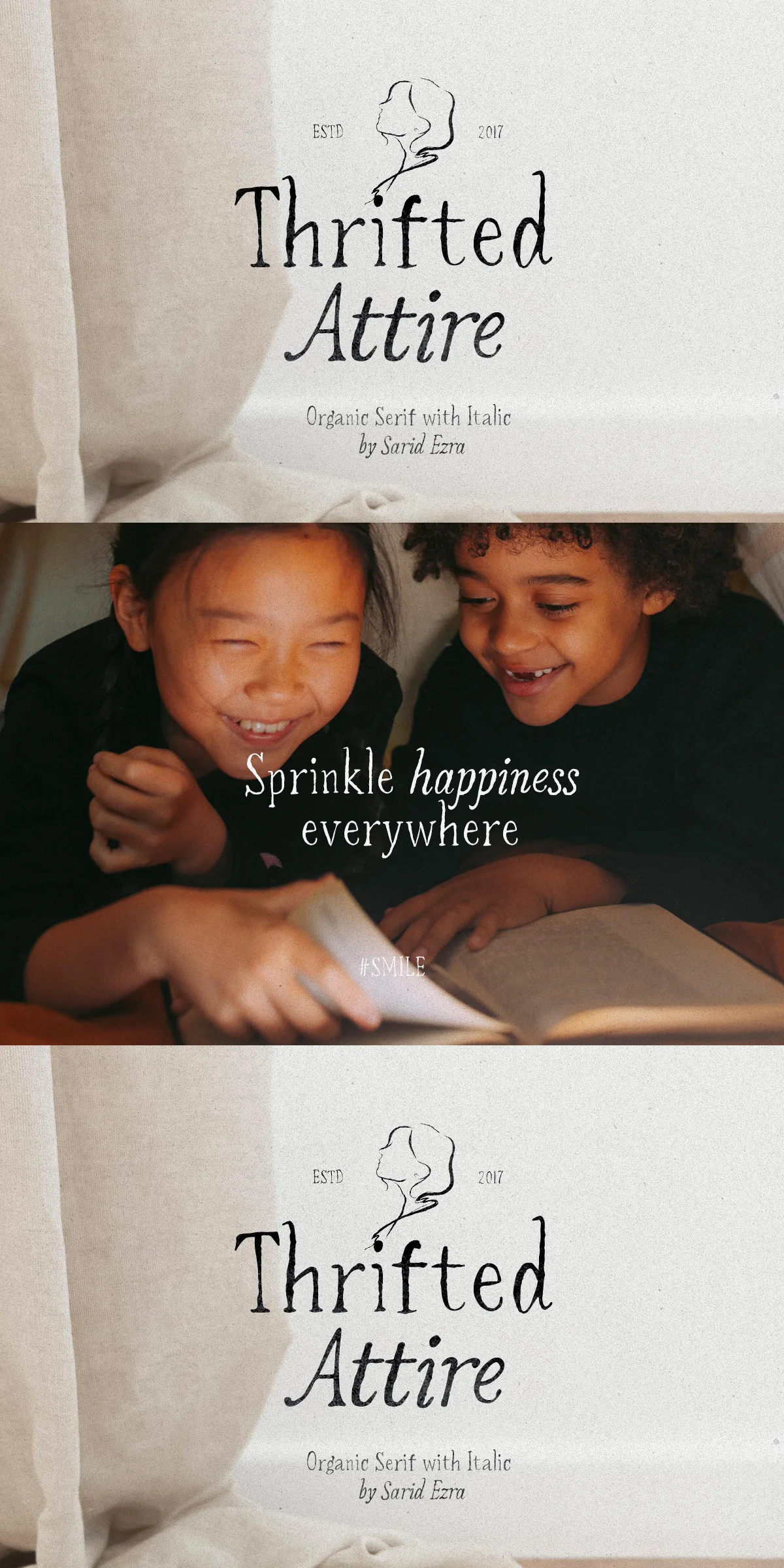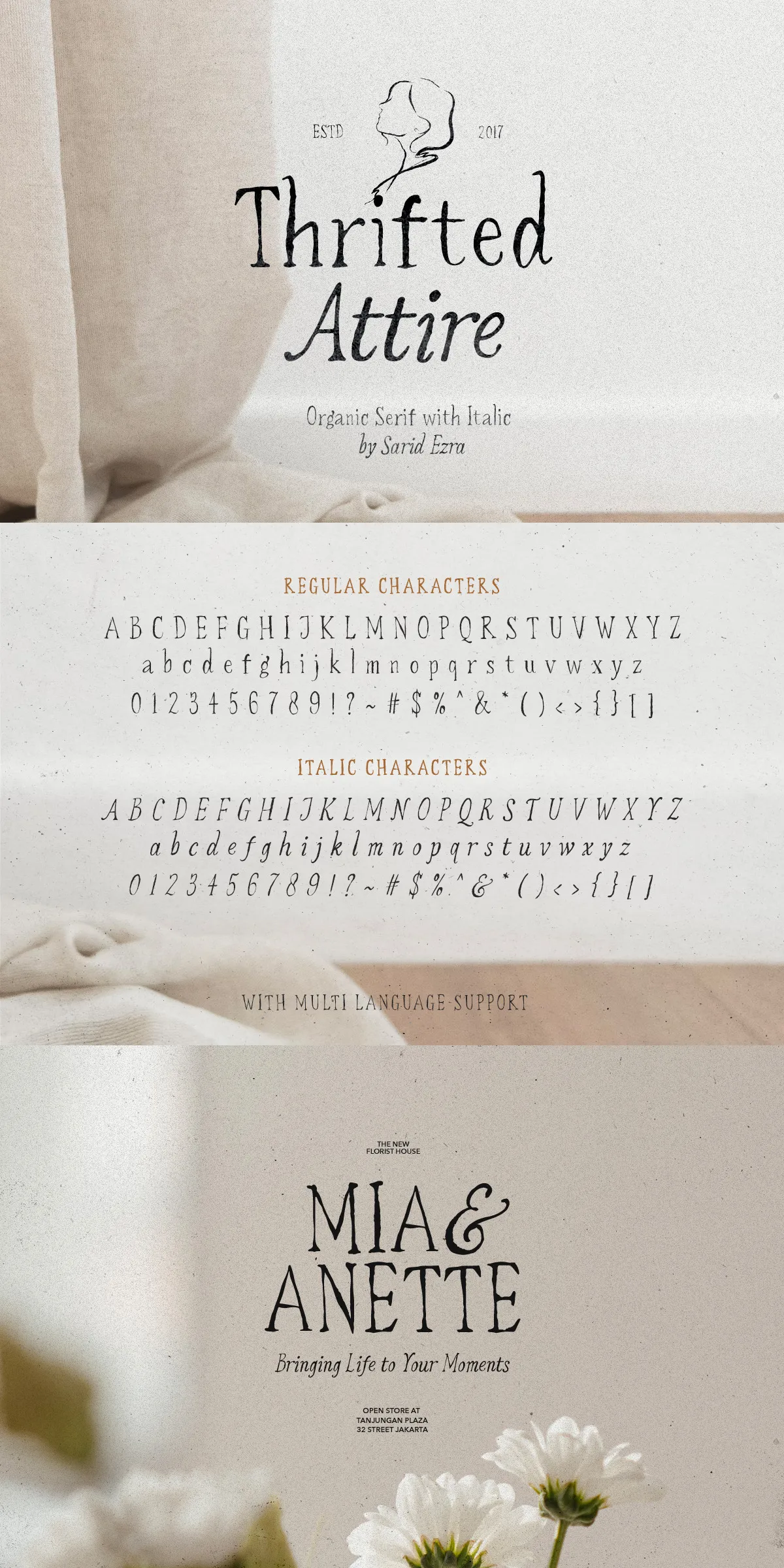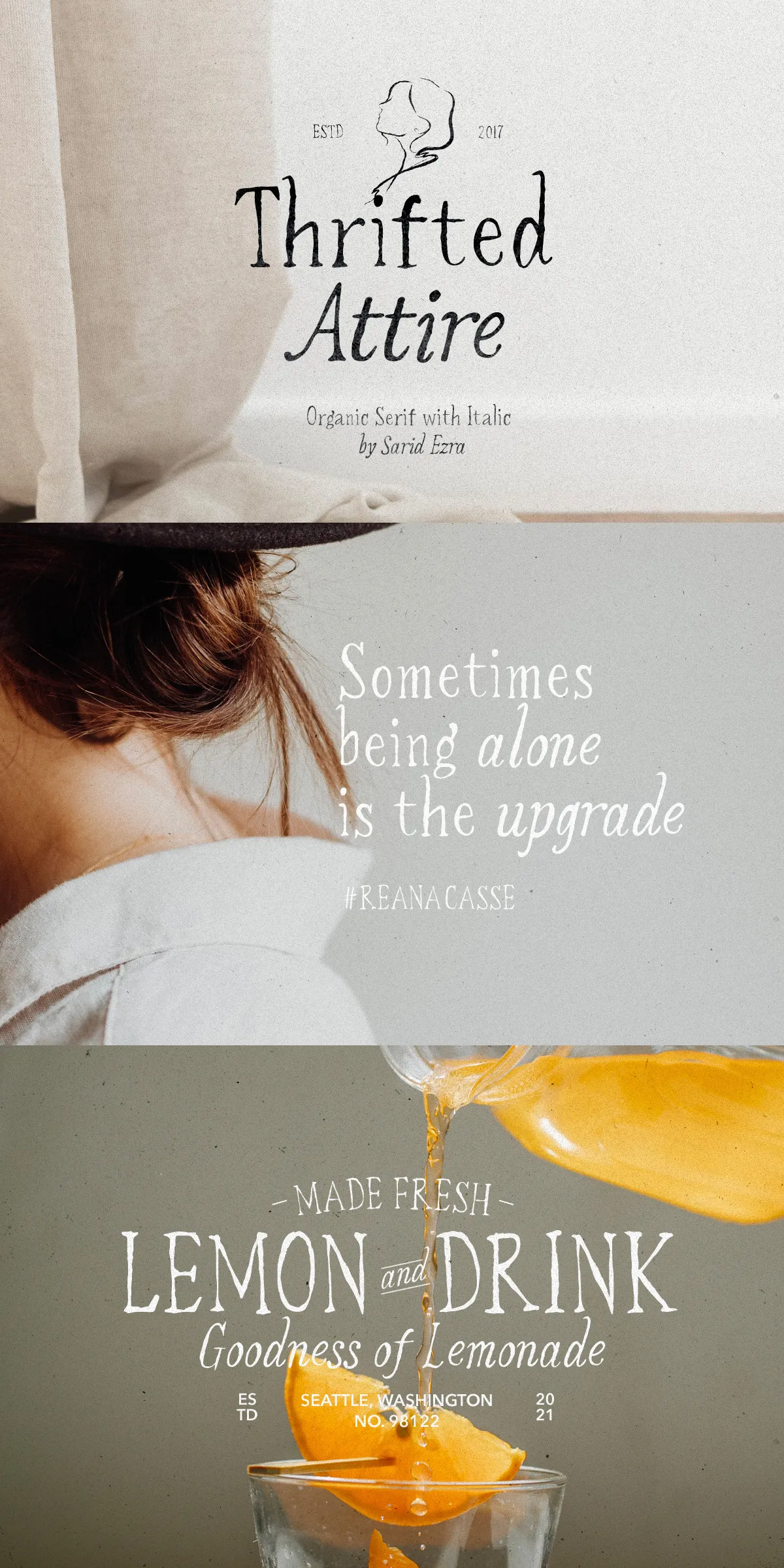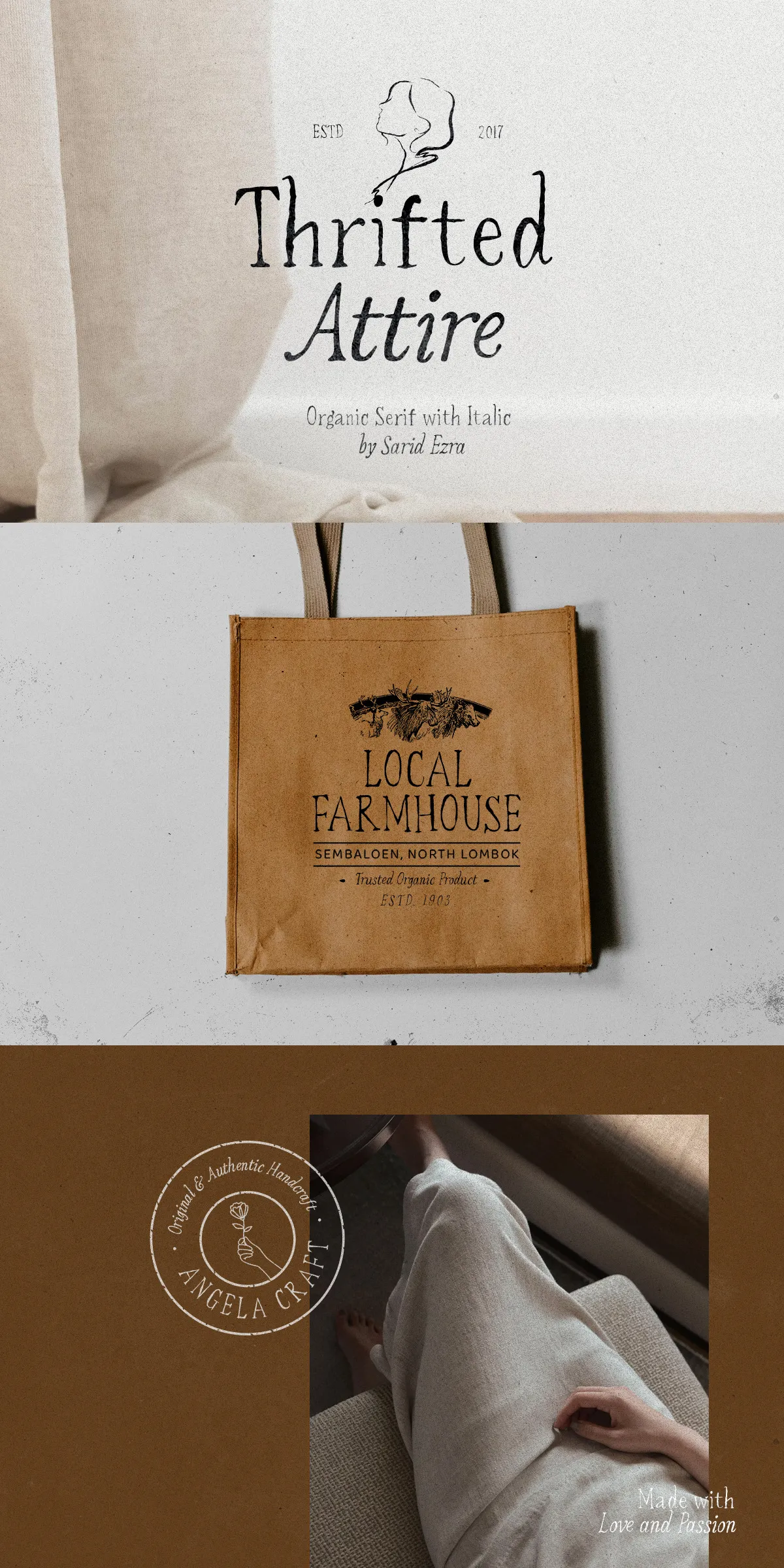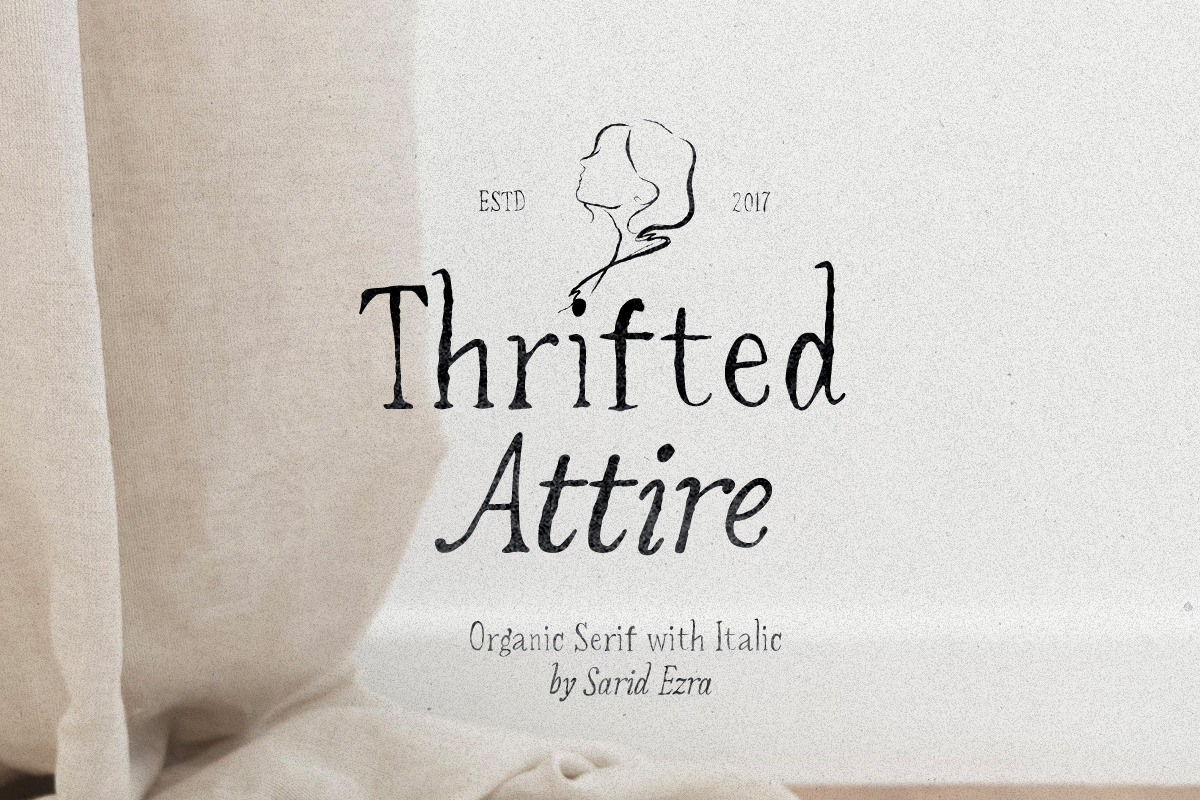
Step into a world where typography feels alive, hand-crafted, and deeply human. Thrifted Attire isn’t just a font — it’s a celebration of natural texture, subtle variation, and the quiet elegance found in vintage imperfections. Designed for creators who value soul over polish, this organic serif family brings warmth, character, and artisanal flair to every project. Whether you’re crafting a brand identity, designing wedding invitations, or composing a heartfelt quote, Thrifted Attire transforms words into art.
Why Thrifted Attire Stands Out in a Digital World
In a sea of perfectly aligned, pixel-perfect fonts, Thrifted Attire dares to be different — and better. Inspired by the tactile nature of hand-printed books, vintage signs, and found materials, this serif family embraces asymmetry, subtle ink bleed, and gentle irregularities. These aren’t flaws — they’re features. They make your design feel personal, authentic, and unmistakably real.
1. Authentic Handmade Aesthetic — No Two Letters Are Exactly Alike
Each letterform in Thrifted Attire is crafted with deliberate variation. Stroke weight shifts subtly, serifs differ in length, and baseline alignment drifts slightly — just like a real hand-drawn or handmade typeface. This organic rhythm gives your text a liveliness that machine-made fonts cannot replicate. Use it for quotes, titles, or branding to instantly convey warmth, storytelling, and emotional depth.
2. Regular & Italic – Harmonious, Expressive, and Fully Compatible
Thrifted Attire comes in both regular and italic variants, designed not as afterthoughts but as a unified language. The italic version is a true italics, not a slanted copy — fully reimagined with dynamic swashes, unique character shapes, and natural transitions. Mix them freely within a sentence to guide the reader’s eye, emphasize meaning, or create visual rhythm. Perfect for poetic compositions, editorial features, and expressive brand messaging.
3. Multi-Language Mastery — Communicate with Global Warmth
Bring your message to life across cultures. Thrifted Attire supports over 90 languages, including Latin, Cyrillic, Greek, Arabic, Devanagari, Thai, and Vietnamese. Whether you’re designing for a boutique bookstore in Paris, a cultural event in Seoul, or a wedding invitation for a multicultural couple, this font ensures clarity, authenticity, and beautiful expression in every language.
4. OpenType Features — Power Meets Personality
Take control of your design with robust OpenType functionality. Access advanced typographic tools like:
- Contextual Alternates: Characters adapt naturally based on their neighbors for a more organic flow.
- Stylistic Sets: Toggle between different visual styles — from restrained elegance to expressive flair — in a single click.
- Ligatures & Swash Forms: Automatically connect certain letter pairs to mimic natural handwriting and enhance visual unity.
Perfect for Projects That Demand Soul and Style
Thrifted Attire thrives in creative spaces where emotion, story, and authenticity matter most.
Brand Identity with Heart
Build a brand that feels personal, relatable, and unforgettable. Ideal for artisanal businesses, craft boutiques, independent publishers, and eco-conscious labels. Use it in logos, product packaging, merch, and social media posts to project warmth, integrity, and humanity.
Wedding Invitations & Celebratory Art
Elevate your wedding stationery with a font that feels like a love letter. Thrifted Attire adds charm to save-the-dates, invitation suites, seating charts, and vows — perfect for rustic, boho, vintage, and minimalist weddings where sentiment meets style.
Editorial & Quote Design
Make your words shine in magazines, blogs, posters, and social media graphics. Its uneven texture and expressive forms make quotes feel intimate and powerful — ideal for poetry, inspirational messages, author bios, and storytelling platforms.
Interactive & Digital Projects
Optimized for web and screen. Thrifted Attire renders beautifully in web design (WOFF2 format), mobile apps, digital catalogs, and presentations. The subtle imperfections add depth and interest even on smaller screens — never lost in translation.
Your Complete Creative Toolkit
Make Every Word Feel Real. Make Every Project Matter.
Thrifted Attire is more than a font. It’s a mindset — a reminder that imperfection is beautiful, and authenticity is powerful. It’s for the designers, writers, and visionaries who believe that typography should feel like it was made by hand, not by algorithm.
Where every letter tells a story. Where every word feels like it belongs.